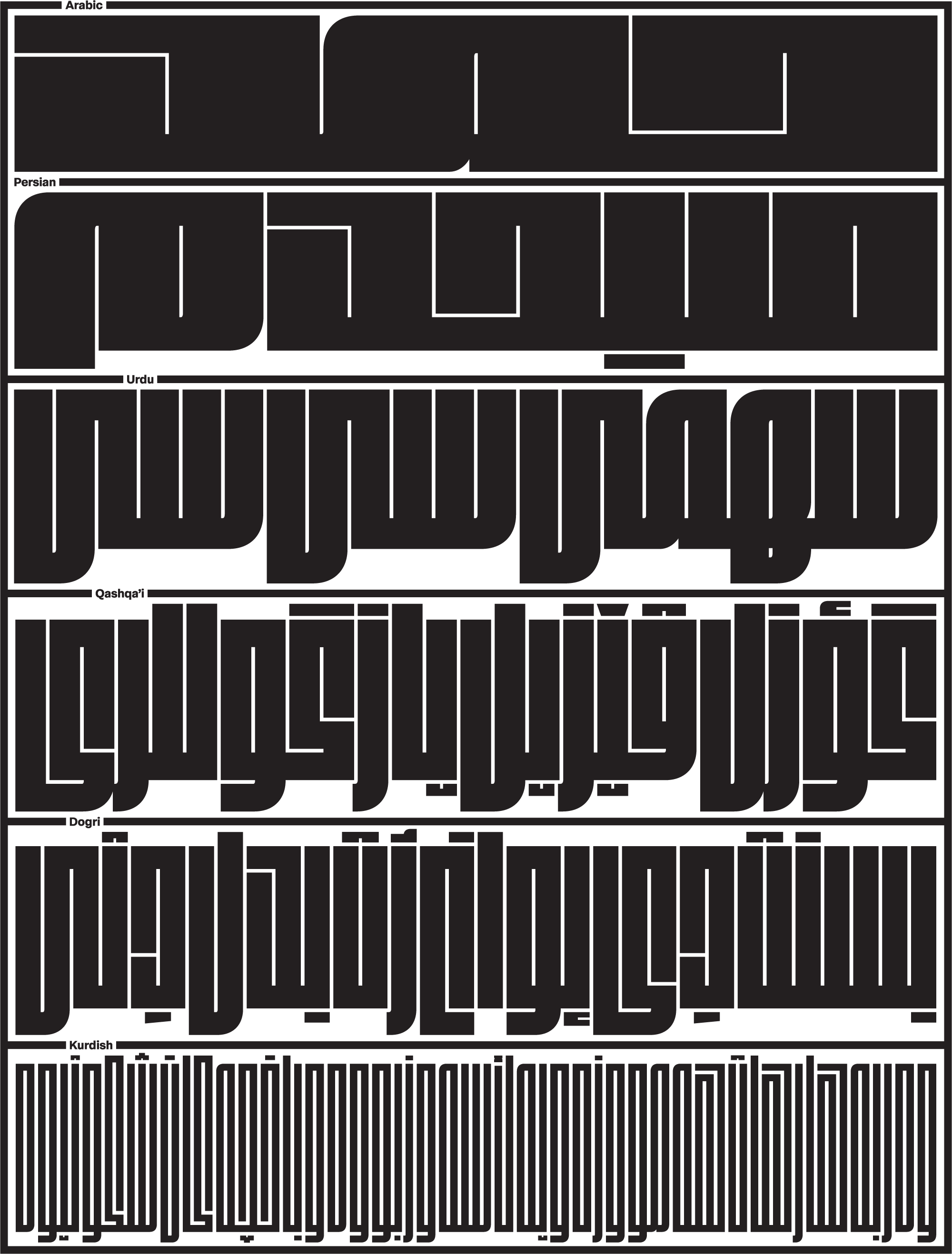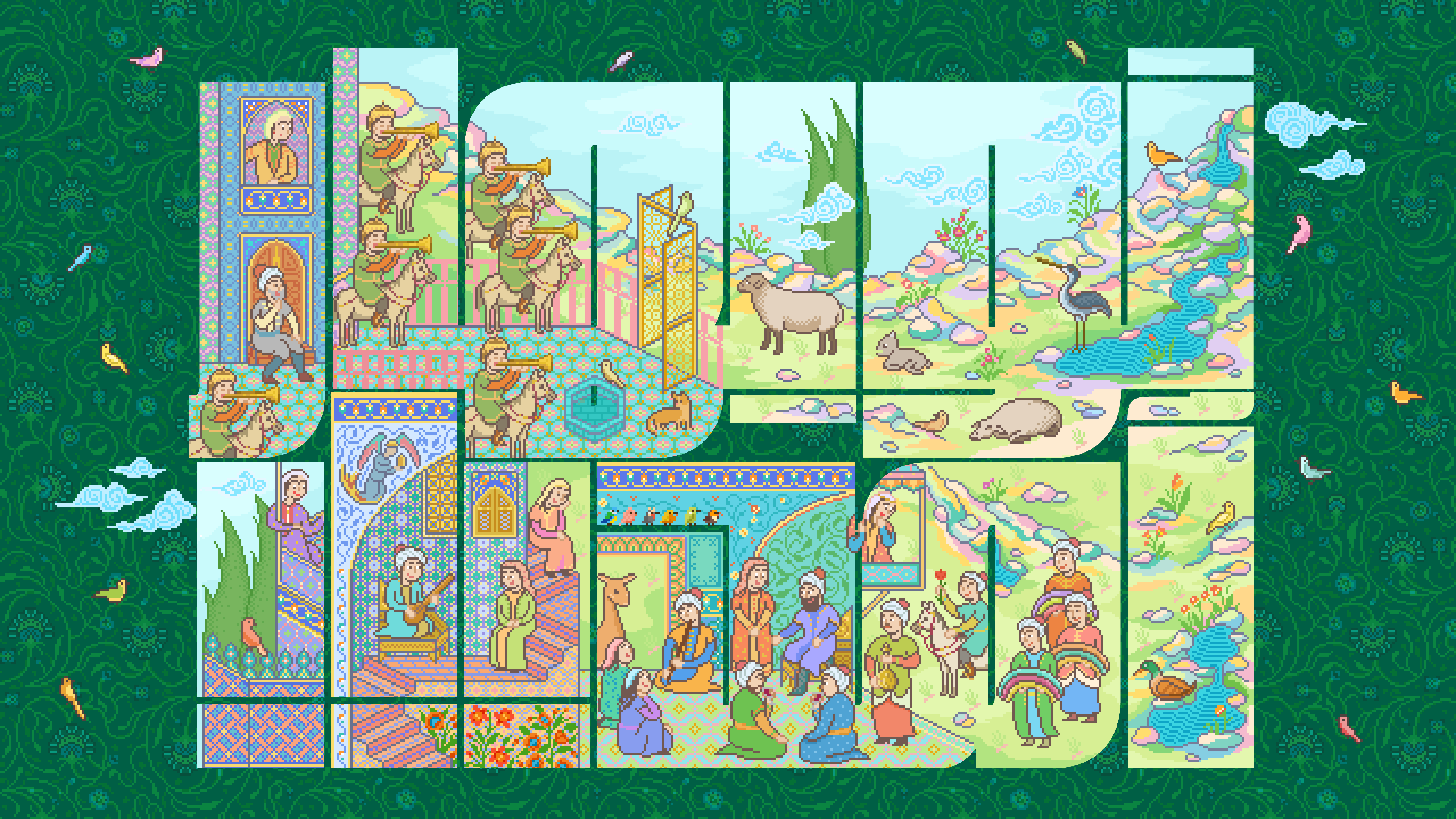
NEW: Fit Arabic by Sahar Afshar
Stop whatever you are doing right now and go check out Fit Arabic, designed by Sahar Afshar and released this past week by Dogray Type Foundry.
Fit is a typeface that is primarily focused on filling space, a quality it shares with the Square Kufi style of Arabic calligraphy. In her interpretation, Sahar was able to build on this rich calligraphic tradition, without being constrained by it. The result is an inventive and modern take on the Arabic script that deftly employs Fit’s design language of curves and divets to make the bold, brash letterforms extra flavorful (and hopefully extra legible, too).
A stunning illustration by Naime Pakniyat that commemorates the release of Fit Arabic.